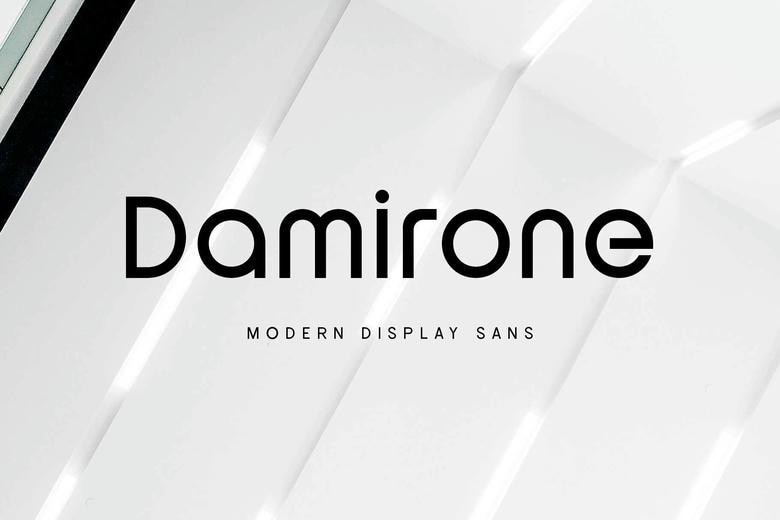
Damirone Font
Damirone is an elegant styled display sans font. Scientific as it is appropriate for minimalist motifs with individual letter shapes. The light stroke and geometric curves when applied create a neat and crisp finish to your design and it’s easily noticeable.
That custom Damirone font comes with extra characters, multiple linguistic compatibility, and a diverse series of ligatures to choose from to use them in logos, posters, the use of quotes, headlines, and even much more!
Damirone Sans Serif Font